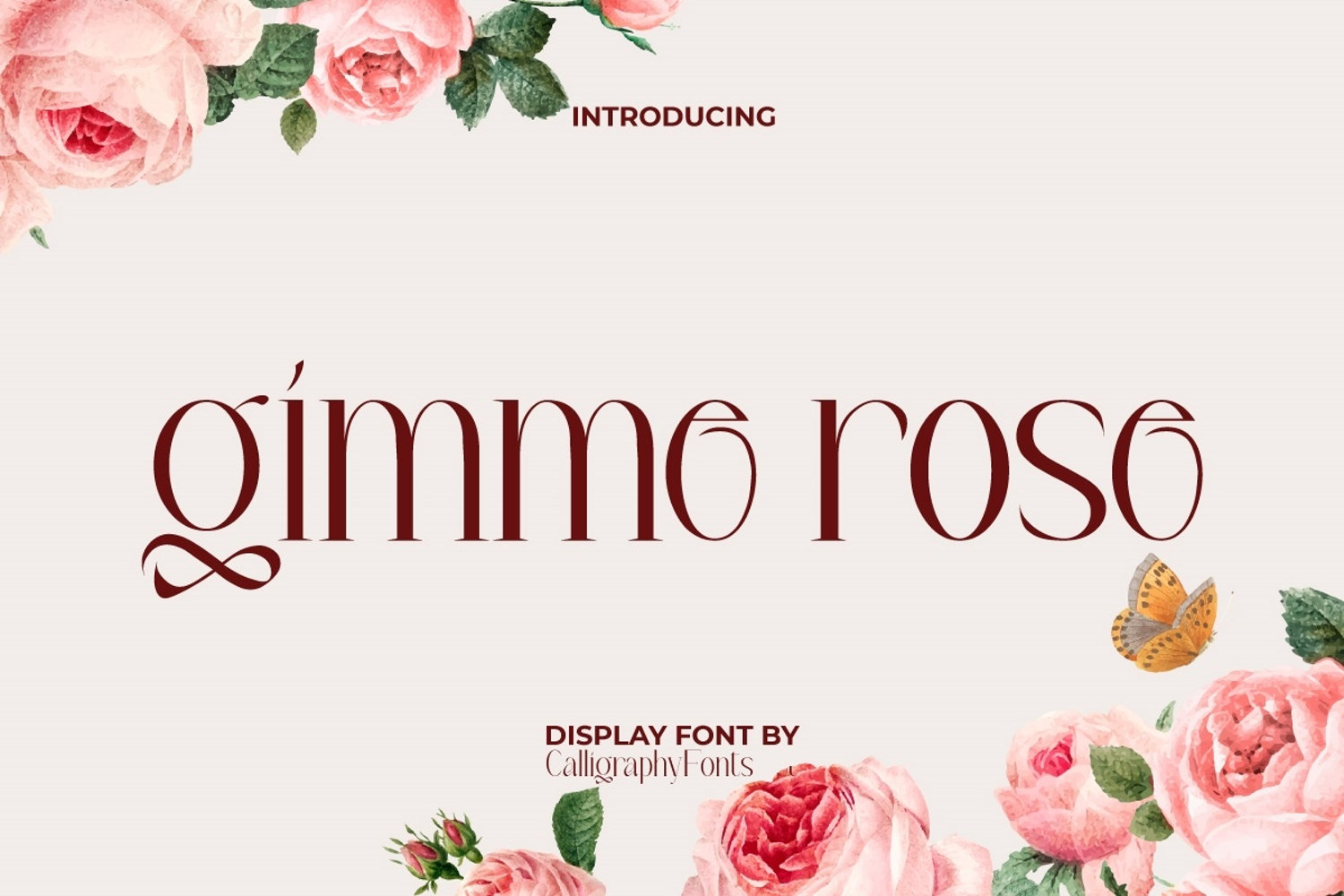
Gimme Rose Font
Gimme Rose Font is an elegant serif display font with a feminine style. This flowering plant typeface combines classy and modern style. This type of font is very suitable for banners, blogs, branding headings, greeting cards, invitations, logos, labels, mockup design, product packaging, stickers, titles, watermarks, websites, and more.
Introducing Gimme Rose Display Font, a bold and stylish typeface designed to make your projects bloom with personality. Inspired by modern elegance and creative expression, this font combines sharp edges with artistic curves, making it the perfect choice for eye-catching headlines, branding, and unique design concepts.
Gimme Rose Display Font is more than just a typeface—it’s a statement. With its striking look and contemporary flair, it’s ideal for fashion brands, editorial designs, posters, logos, and product packaging. Its versatility allows it to be both powerful and graceful, making your text stand out while still maintaining a sense of sophistication.
Whether you’re designing for digital platforms or print materials, Gimme Rose Display Font ensures your message is delivered with impact. Pair it with minimalist sans serifs for a modern balance, or let it shine on its own as the centerpiece of your design. From magazine covers and event invitations to branding kits and advertising campaigns, this display font helps you create unforgettable impressions.
Crafted for designers who want boldness with elegance, Gimme Rose Display Font brings creativity and confidence to every project. Its stylish character shapes are perfect for those who need a font that feels trendy, artistic, and professional all at once.
Gimme Rose Display Font with high contrast designed to be stylish and not boring is here to be your font collection. Express the feelings of love and happiness poured into the design by this rose font! The rose has its own meaning, which is one of the most beautiful ways to express feelings. This will be useful for advertisements, boutique, fashion, florist, home furniture, perfume makers, photography, wedding organizer, etc.